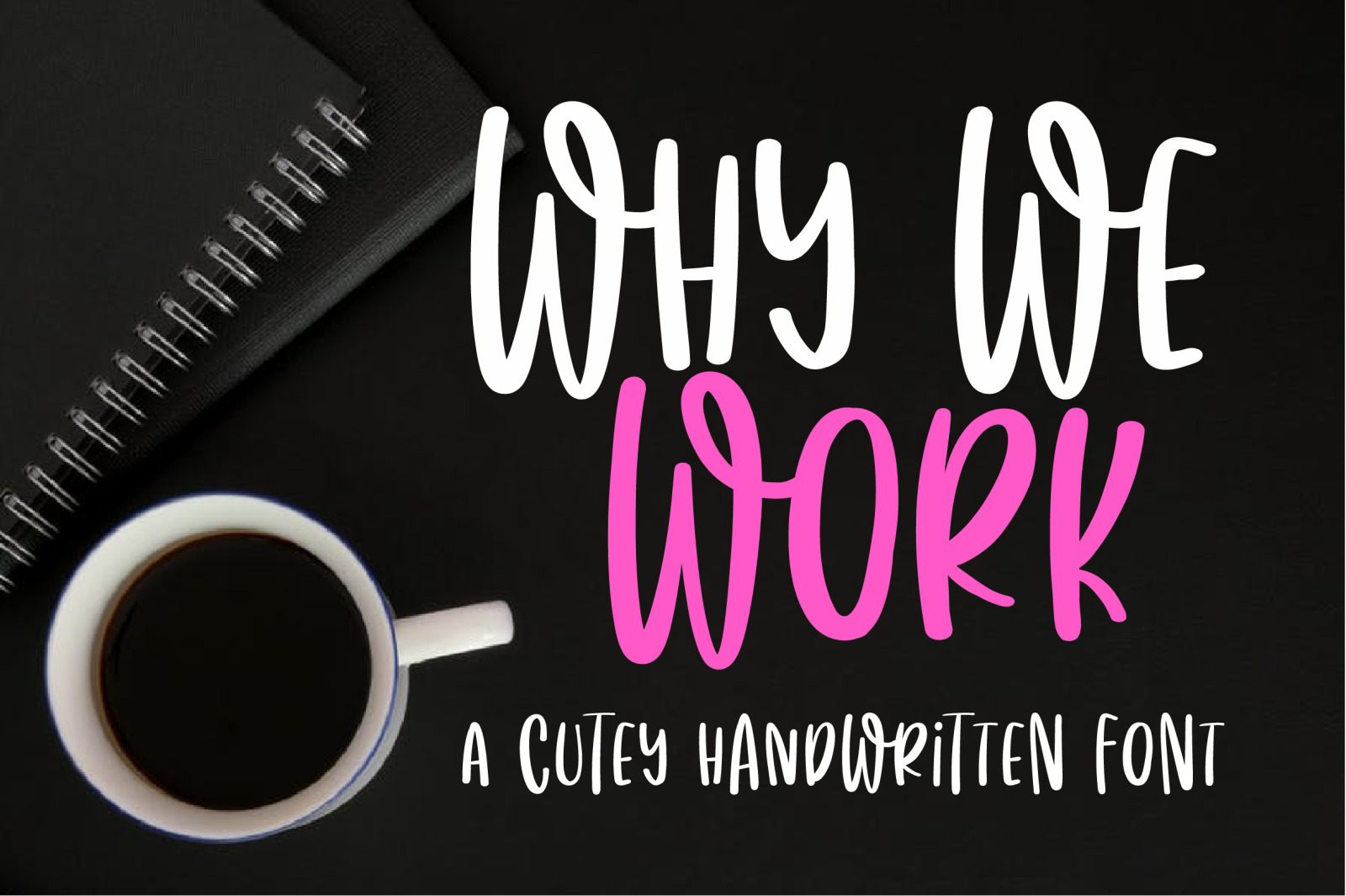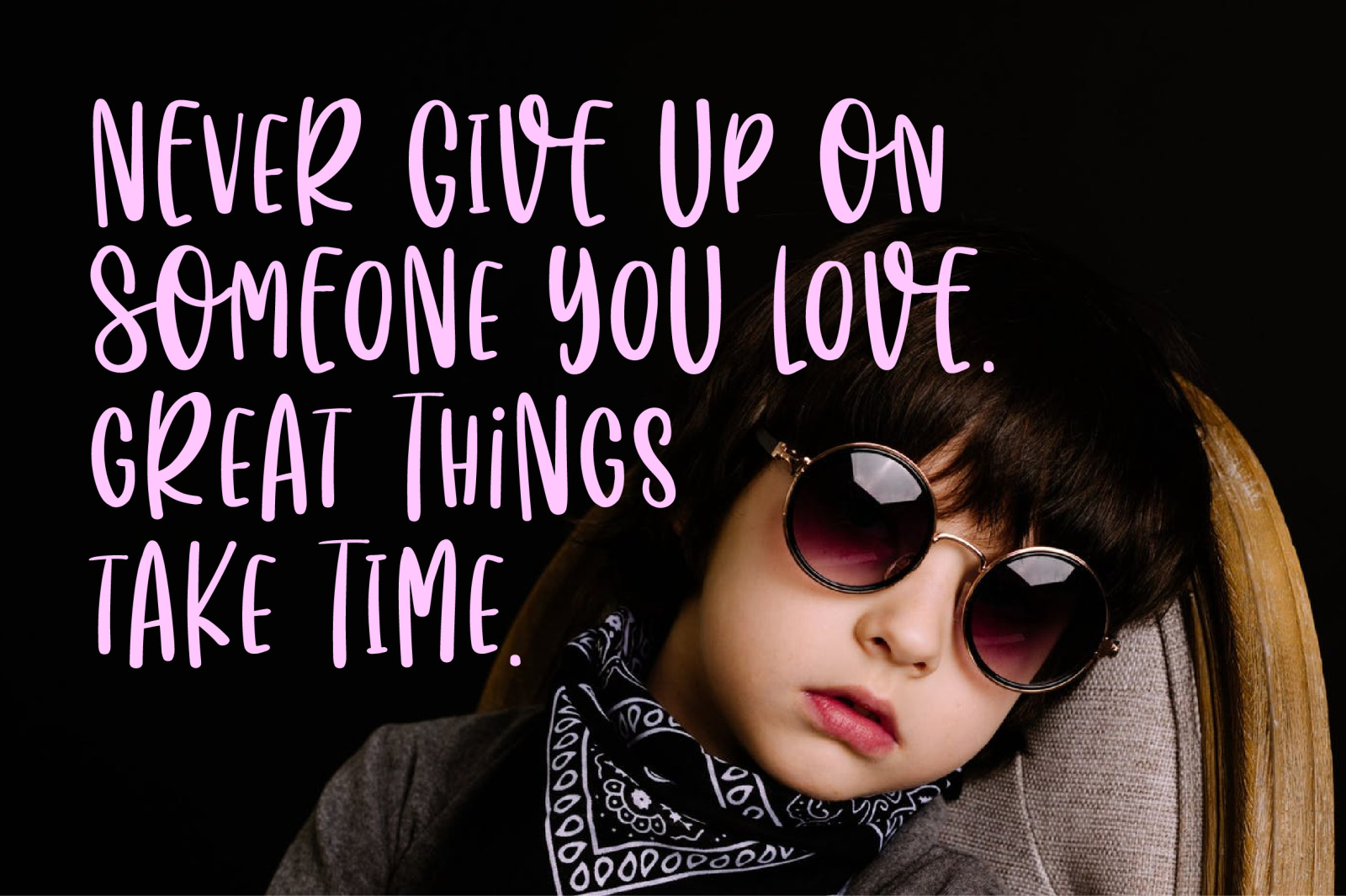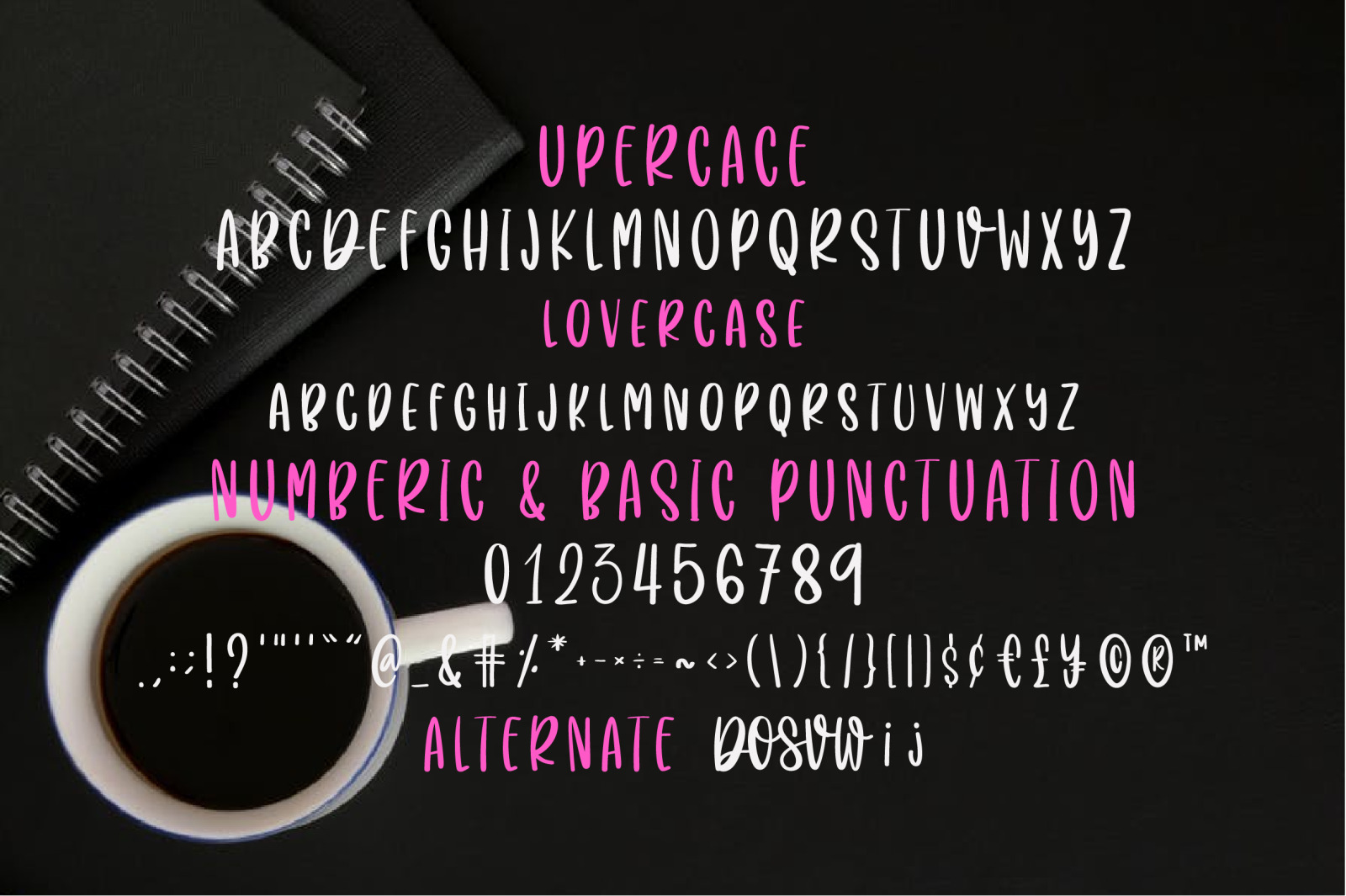
Why We Work Font
Why We Work is a cheerful and friendly handwritten font. It will elevate a wide range of design projects to the highest level, be it branding, headings, wedding designs, invitations, signatures, logos, labels, and much more!